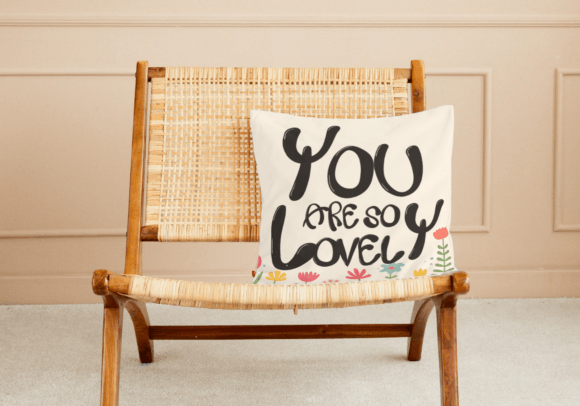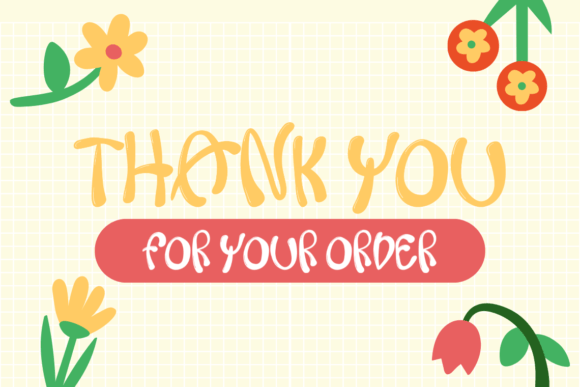
Hello Spring Butterfly Font
Hello Spring Butterfly font offers a charming handwritten style with graceful alphabet graphics that evoke the beauty of the season. Designed to inspire and celebrate, this font is perfect for a wide range of creative projects, including invitations, greeting cards, posters, and more. Whether you’re capturing the essence of springtime or adding a touch of whimsy to your designs, Hello Spring Butterfly font brings joy and elegance to any project. Embrace the spirit of the season with this delightful and versatile font choice.